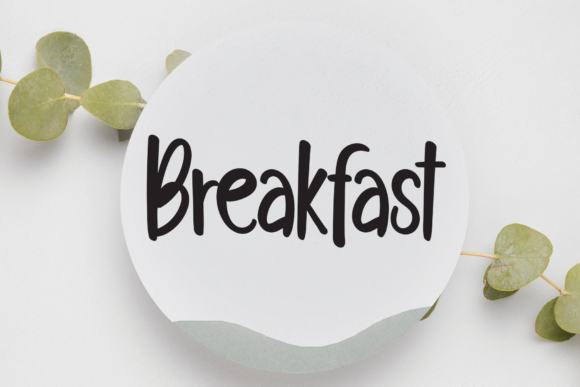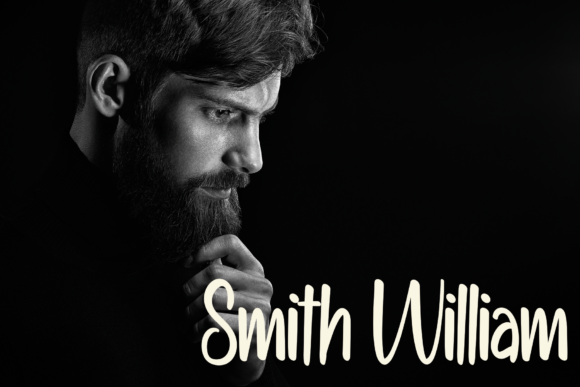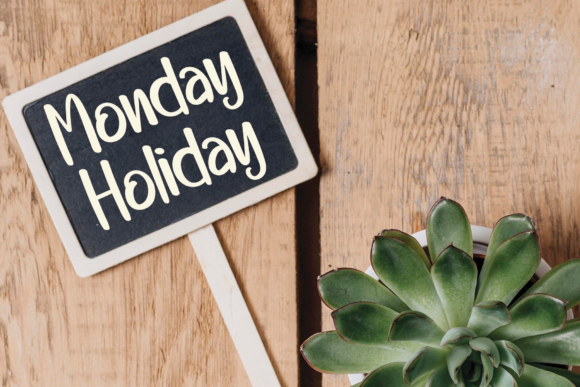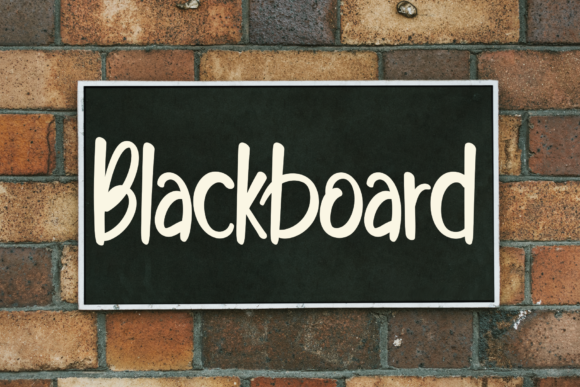
Introduction to Homestore Font
Homestore is a simple, unique and adaptable handwritten font.
You can successfully add this elegant font to your wedding invitations, business cards, greeting cards, social media posts, wall art and much more .
Key Features of Homestore Font
Why Choose Homestore Font?
Homestore Font offers exceptional quality and versatility, making it a valuable addition to your design toolkit. Whether you’re creating for personal projects or commercial use, Homestore Font delivers professional results.